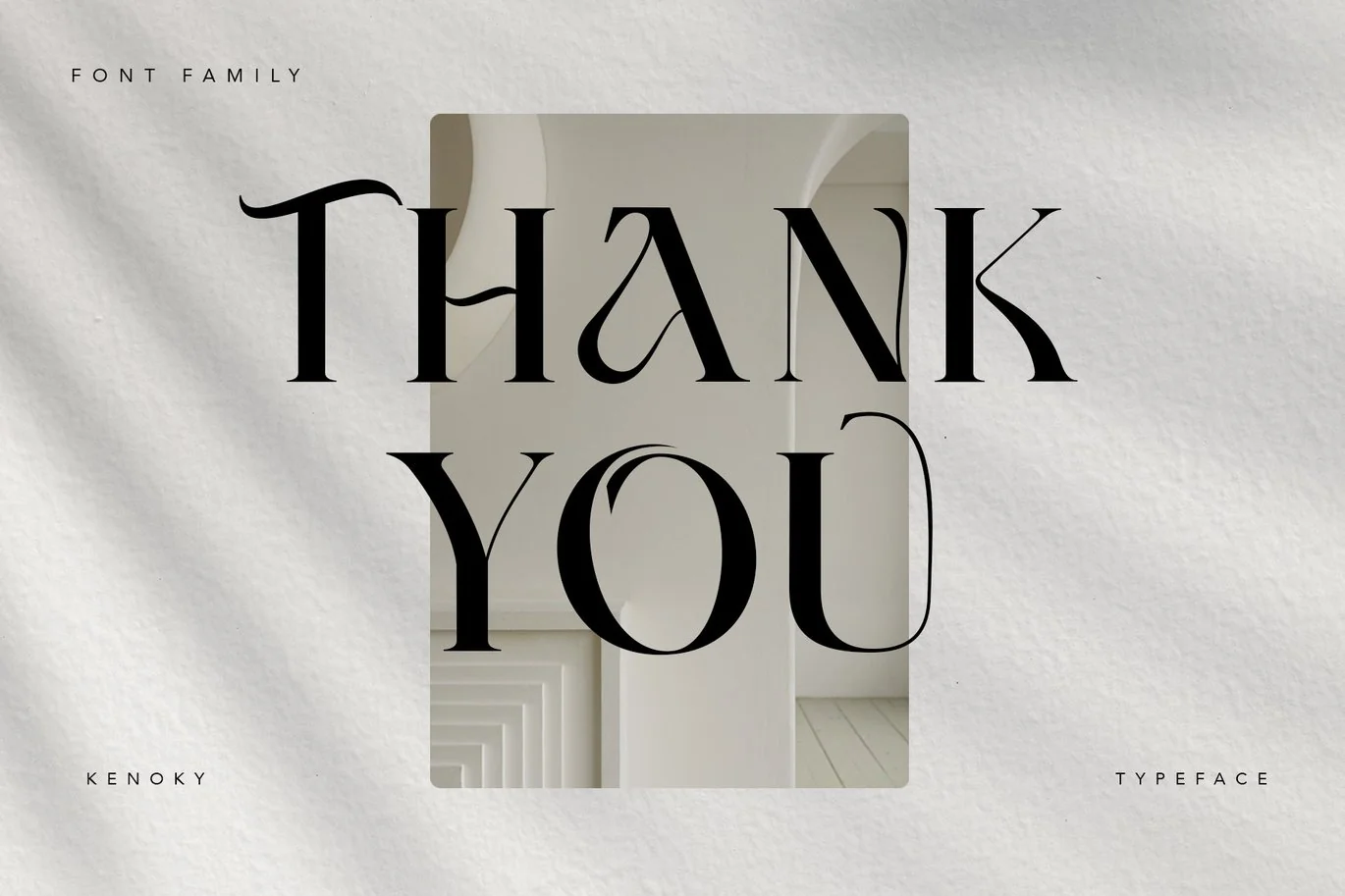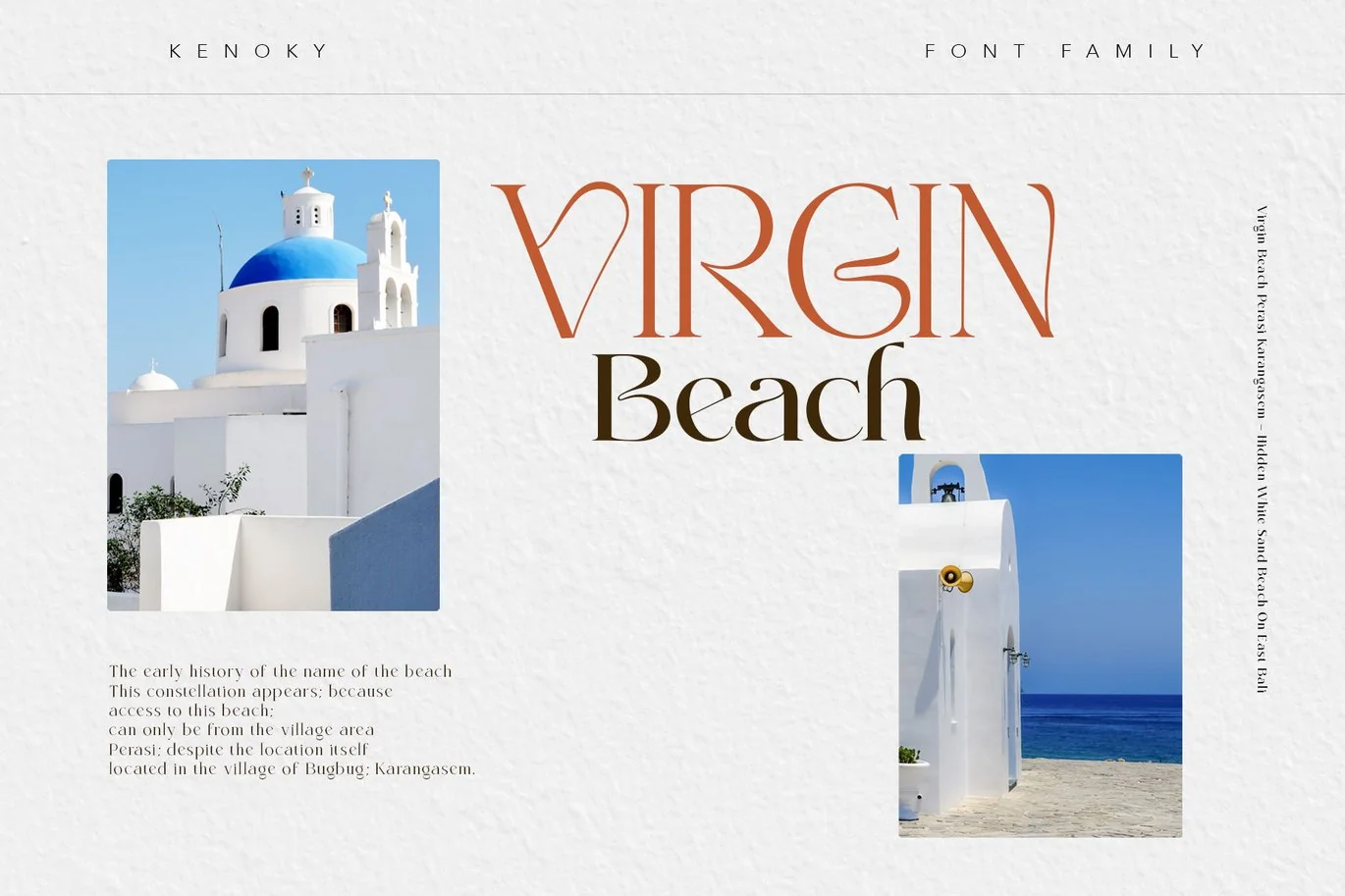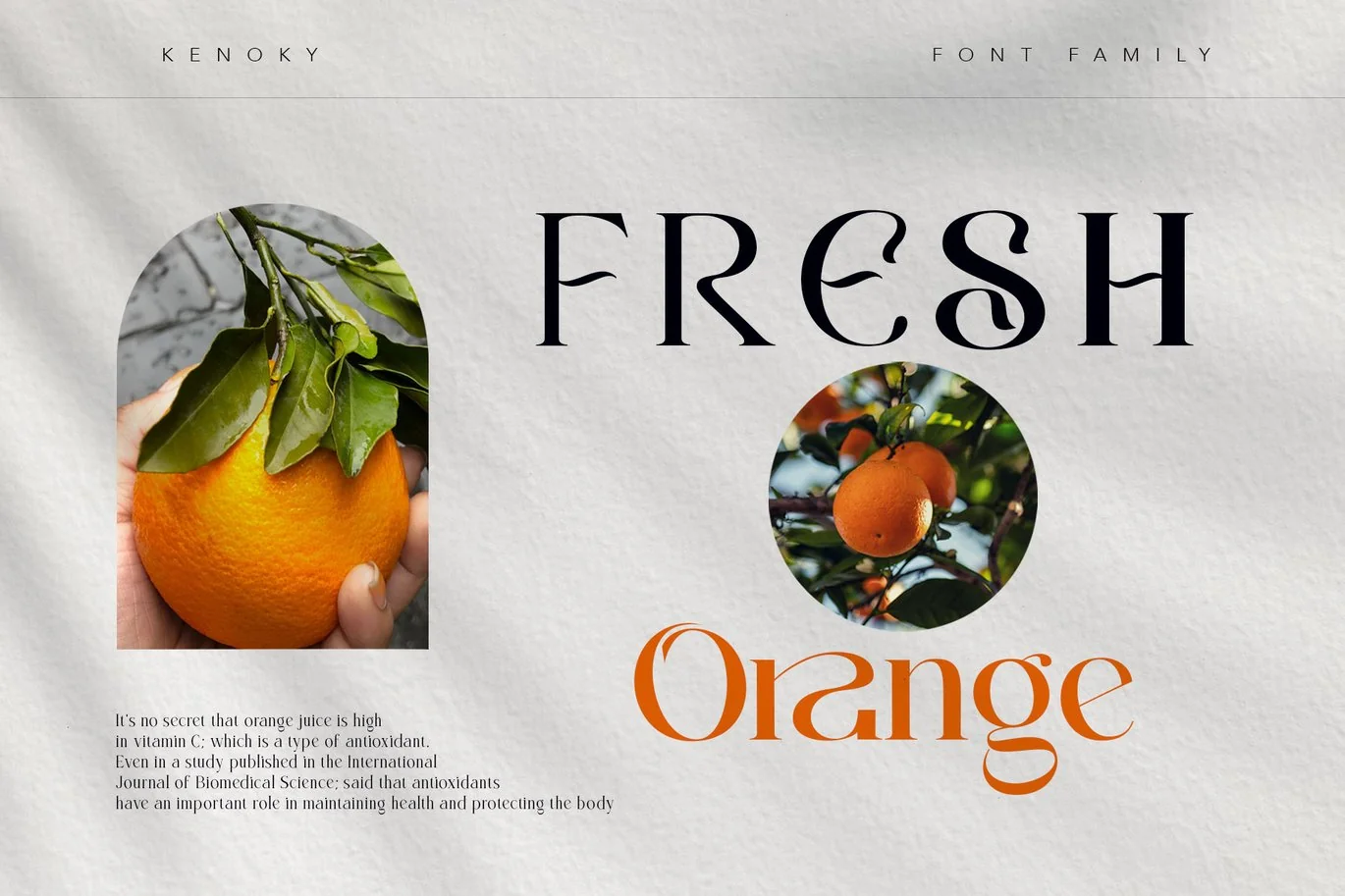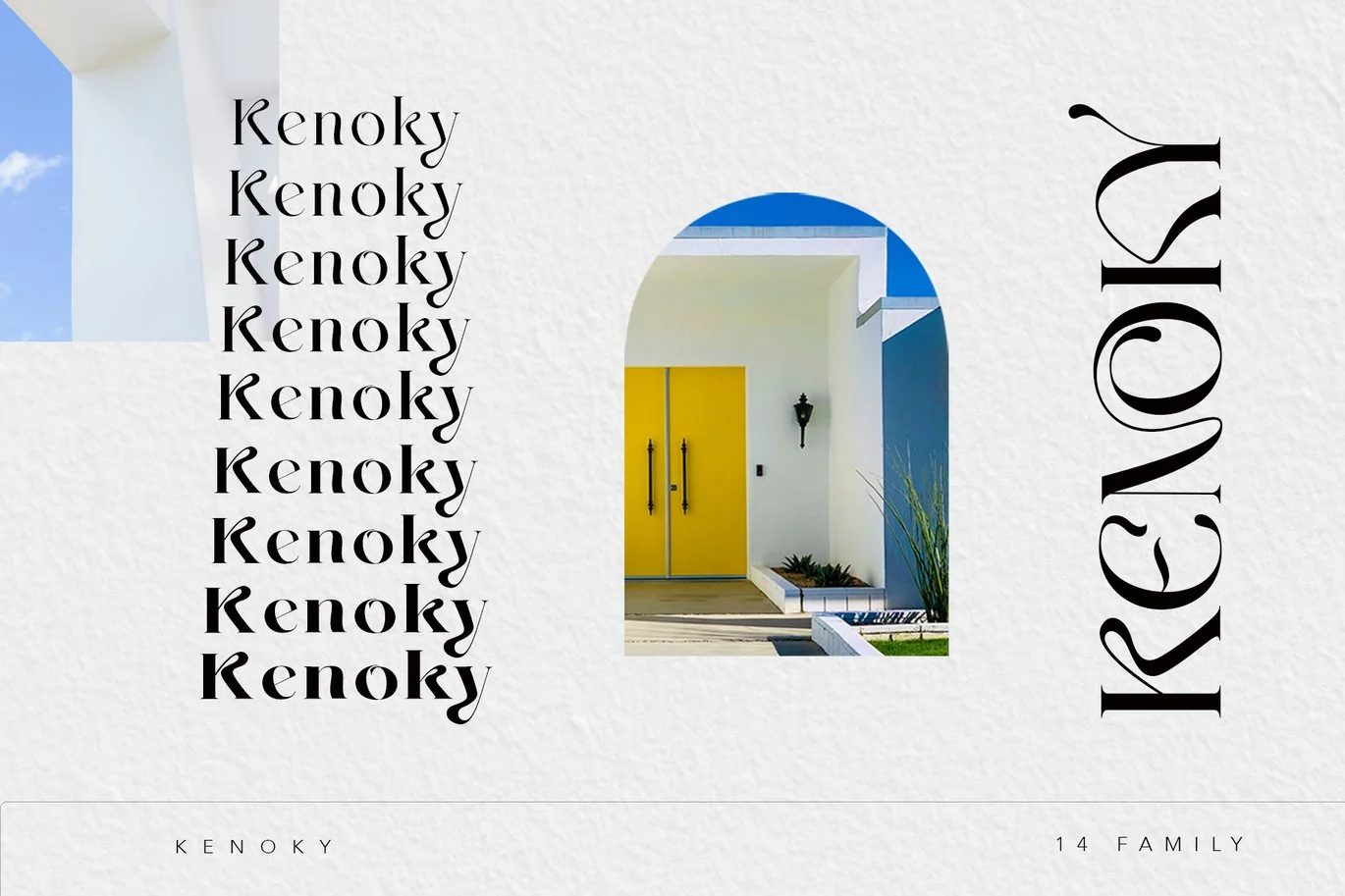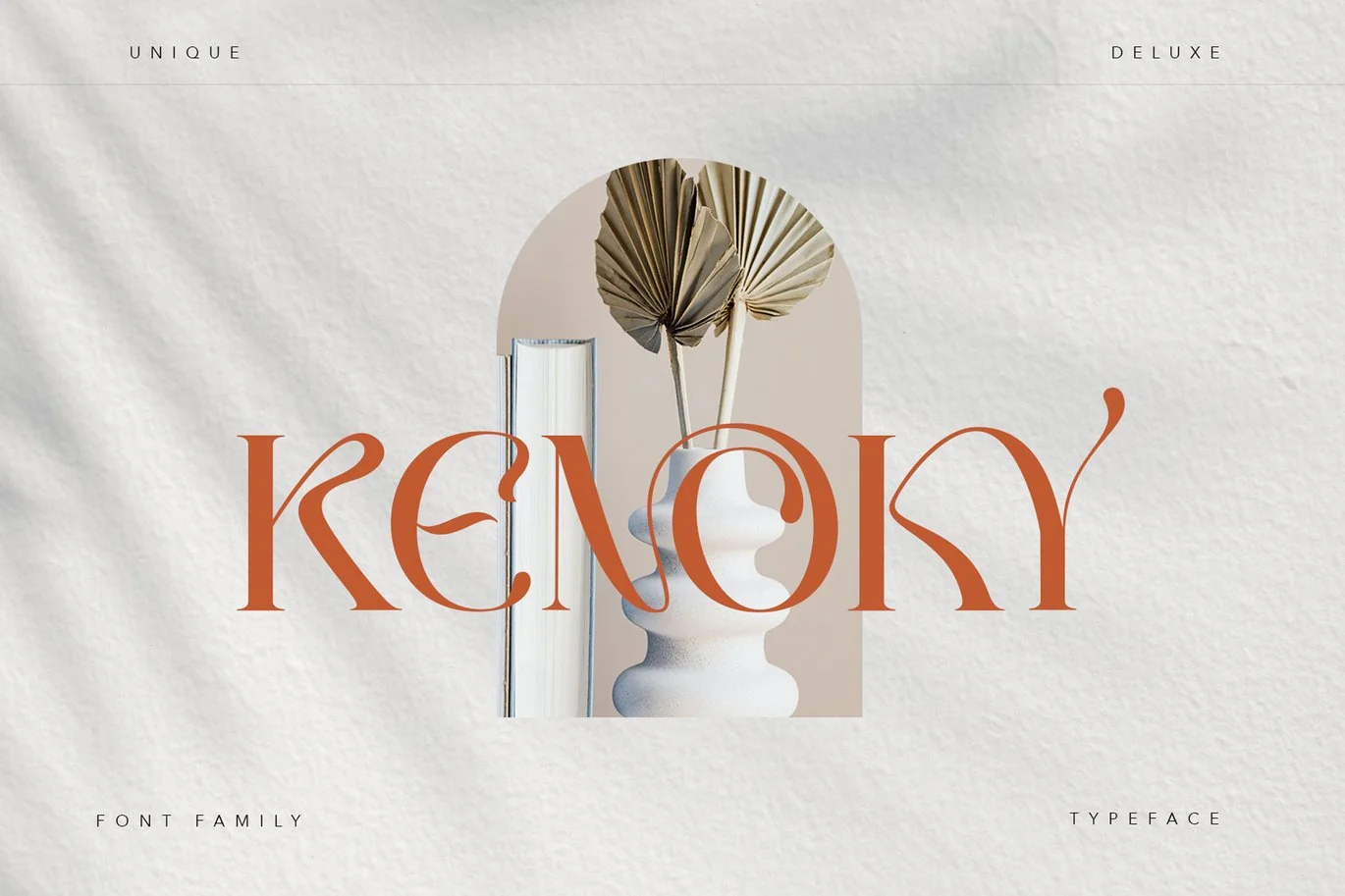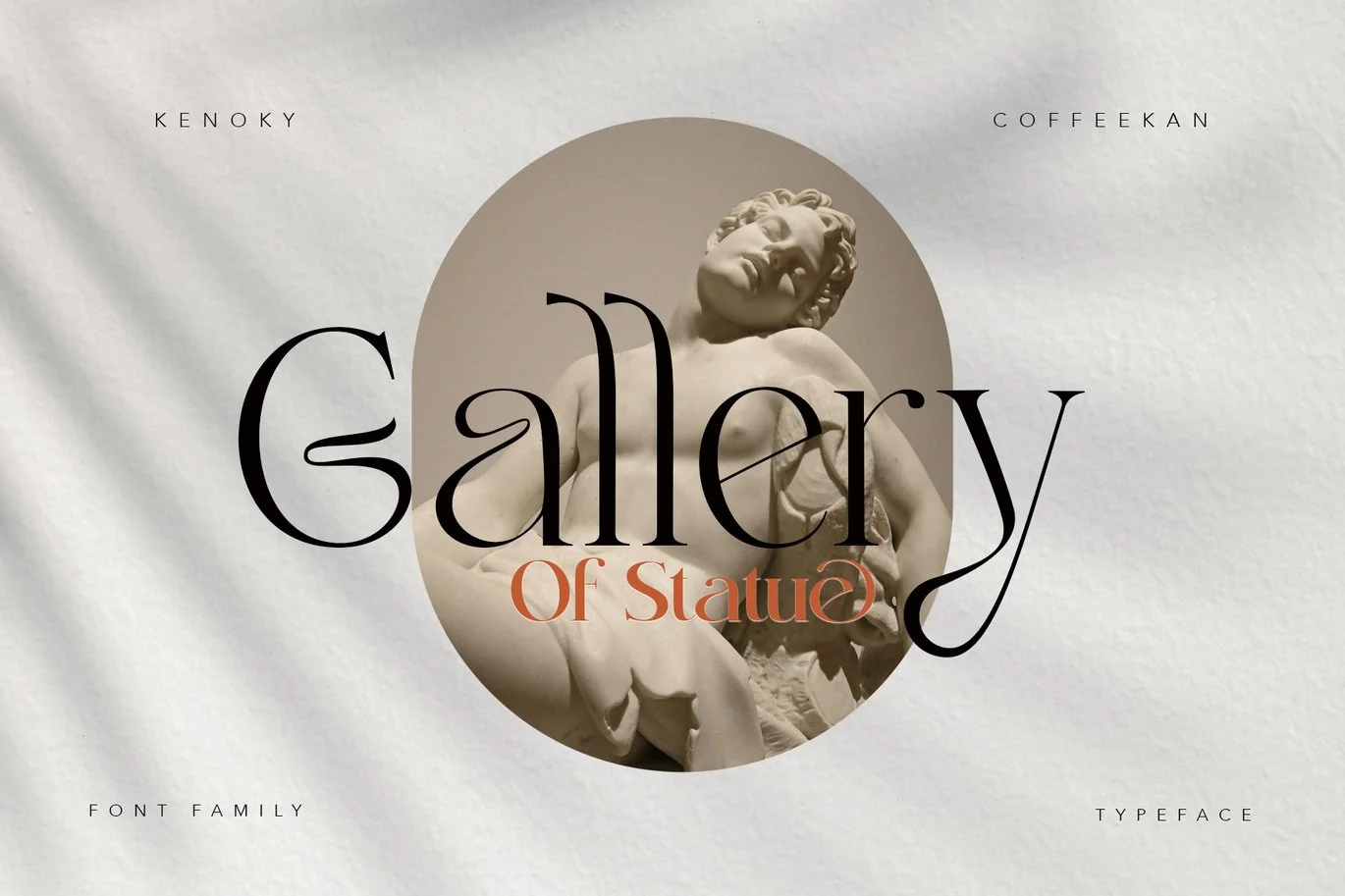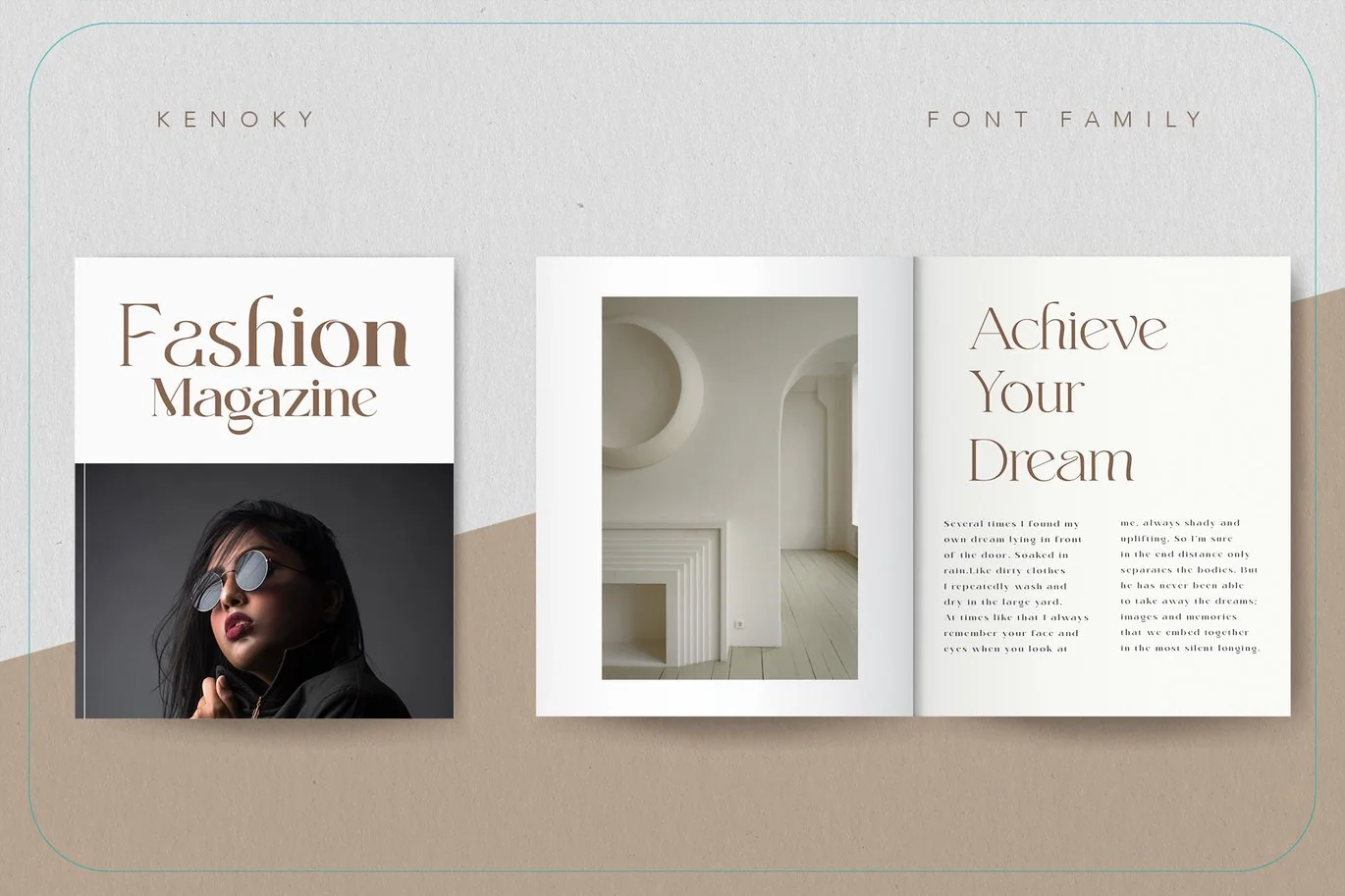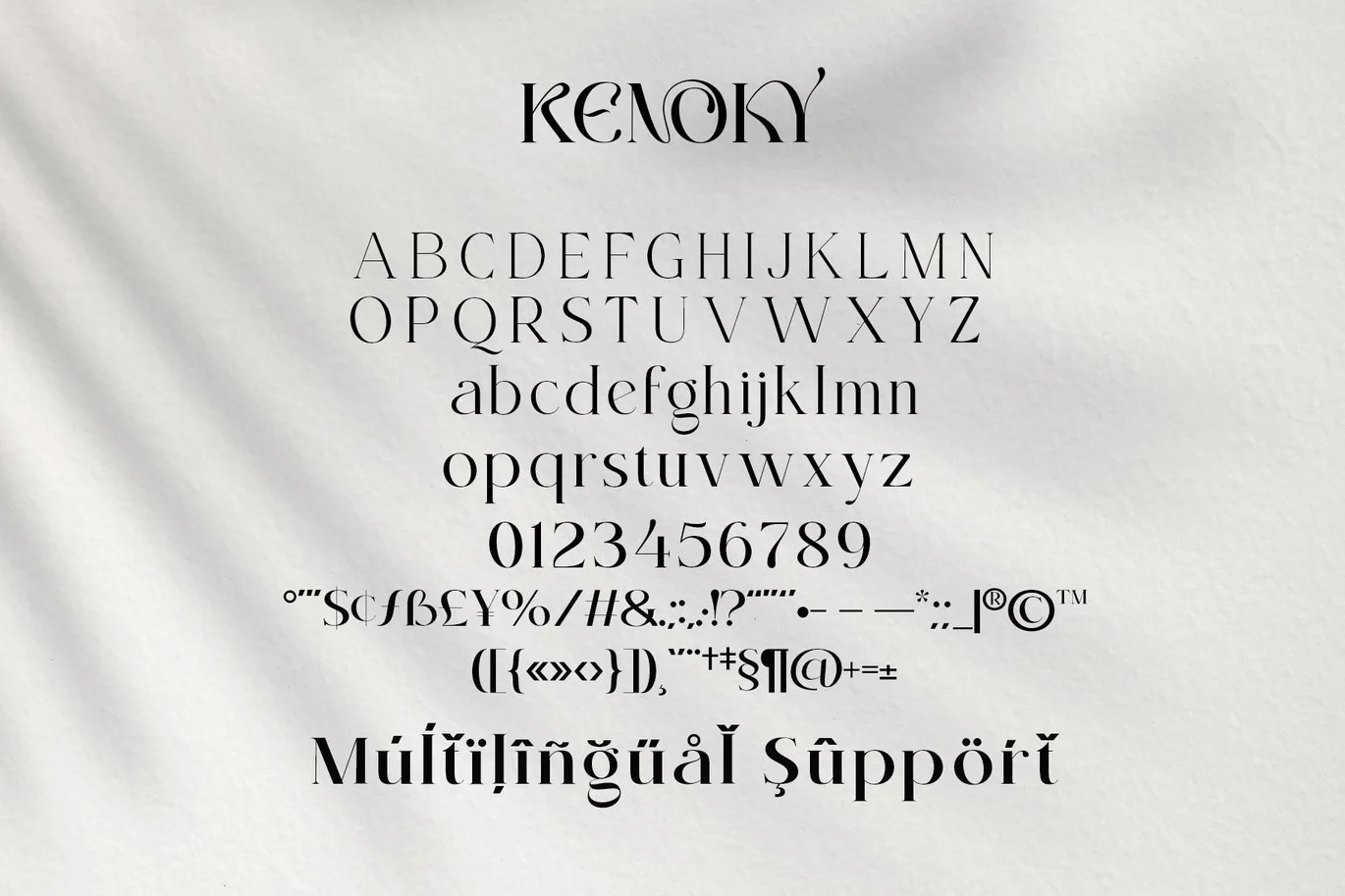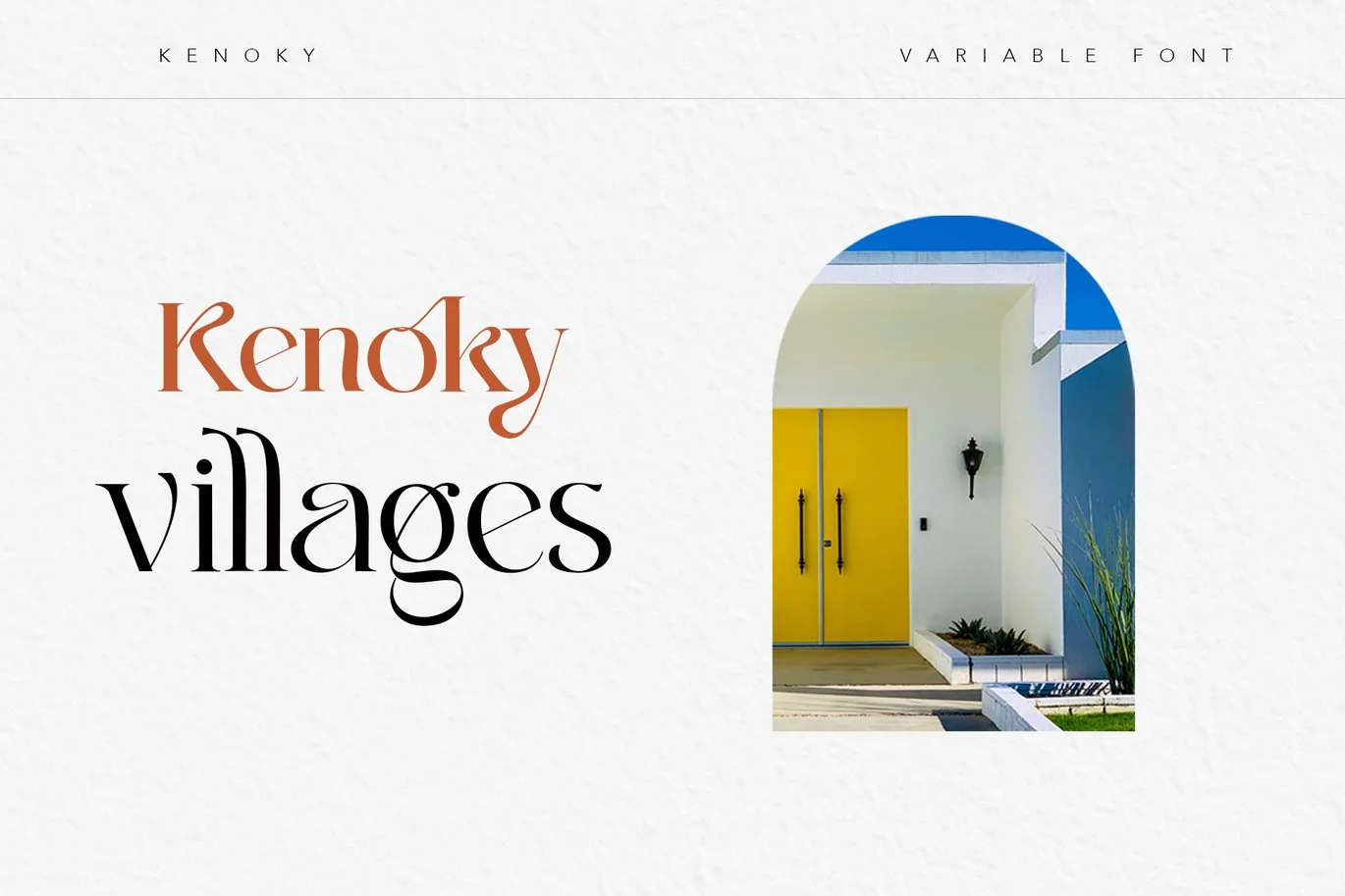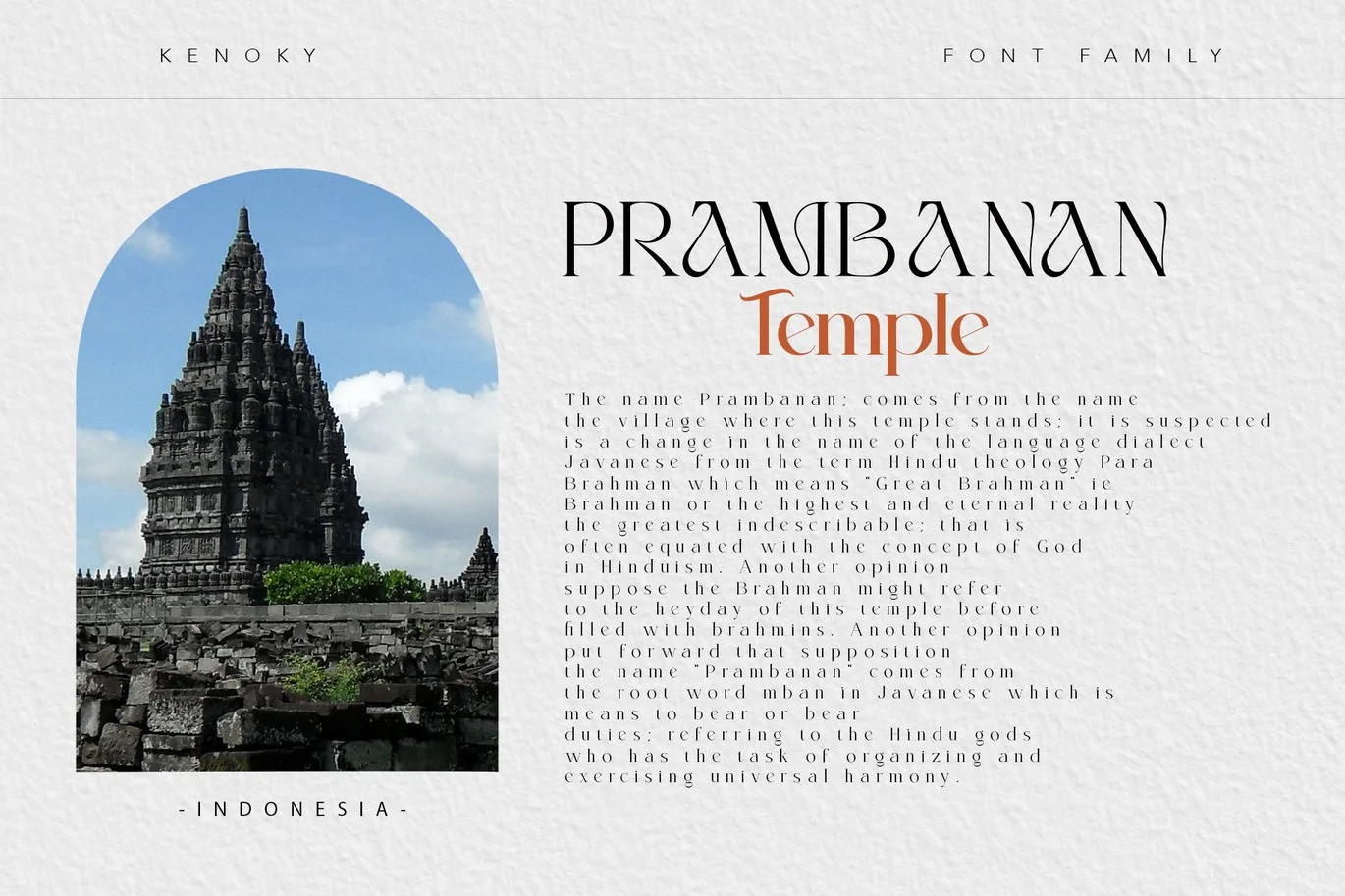
Kenoky Typeface
Introducing KENOKY Typeface
KENOKY font family consists of 14 families, from Thin to Heavy style. The elegant modern font creates a unique design and is sure to steal the eye of the design target audience. Besides being unique, the KENOKY font also has a luxury simple character that makes the design charming and luxurious.
These two fonts are perfect for designs with the concept of elegant, luxury, romance, fashion and so on.
- A-Z Character Set
- family (Thin-Heavy)
- Numerals & Punctuations (OpenType Standard)
- Stylistic Alternates